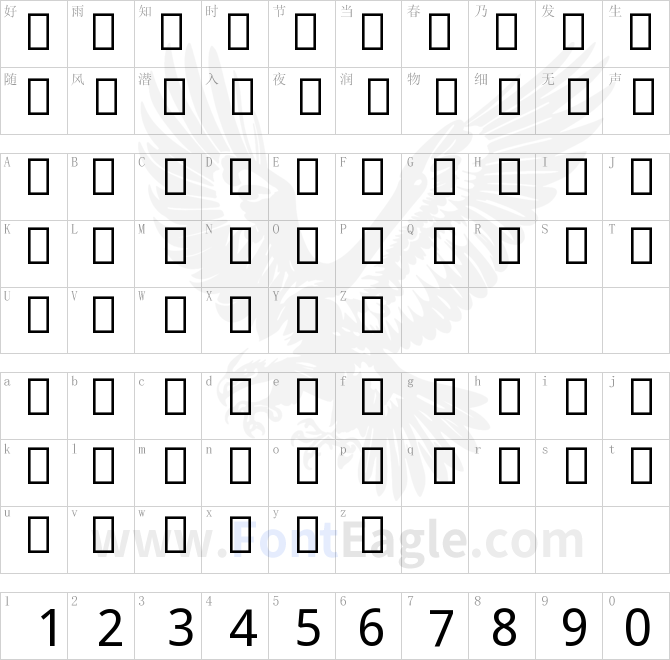
- Font name:Noto Emoji
- Font Full Name:Noto Emoji
Noto-Emoji is a great font, widely used in graphic design, single-page menu design, poster design and other fields, and is deeply loved by designers.Noto-Emoji download.